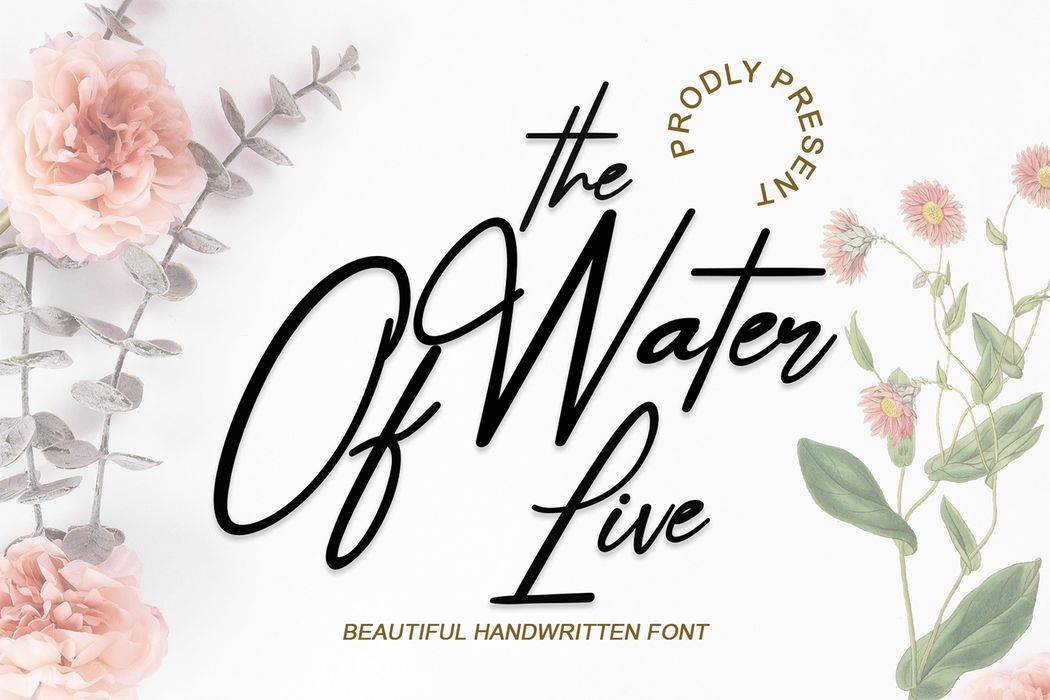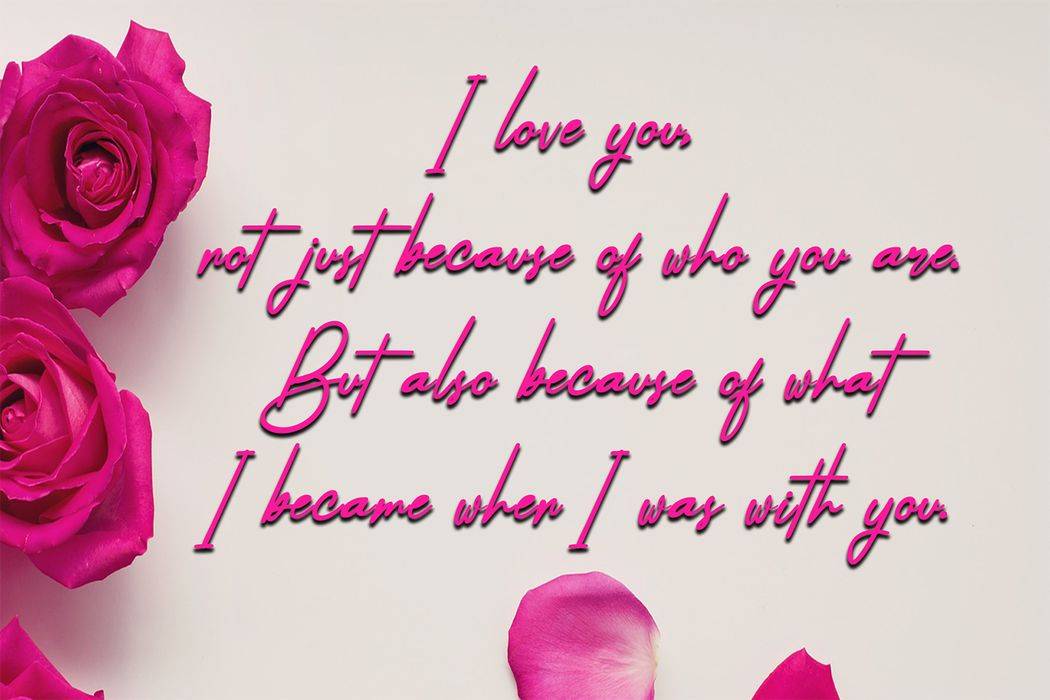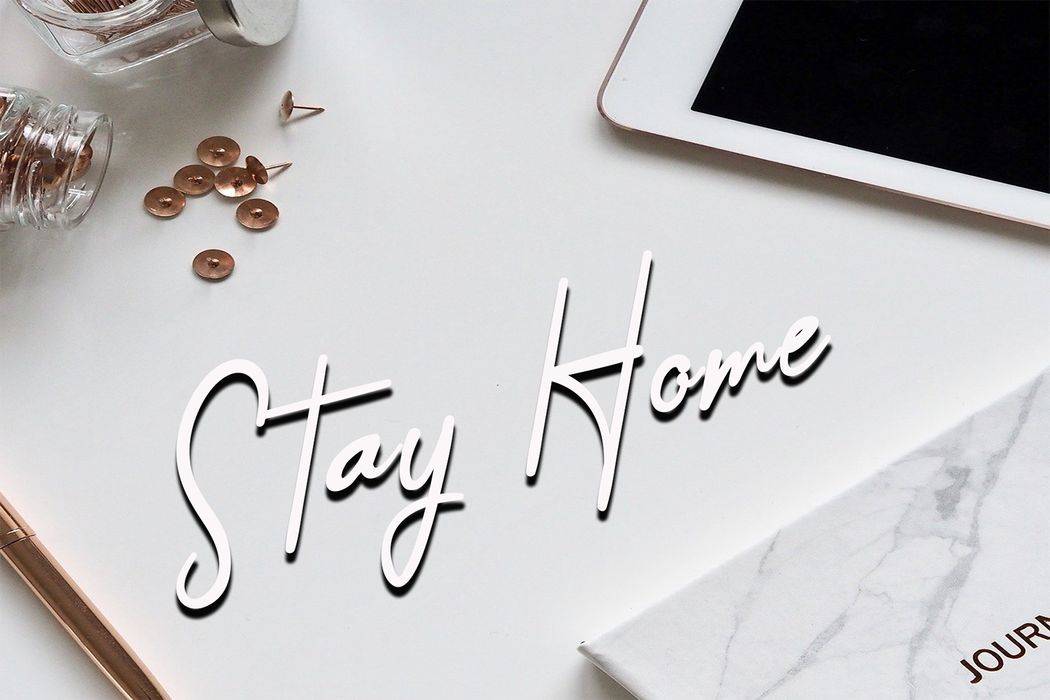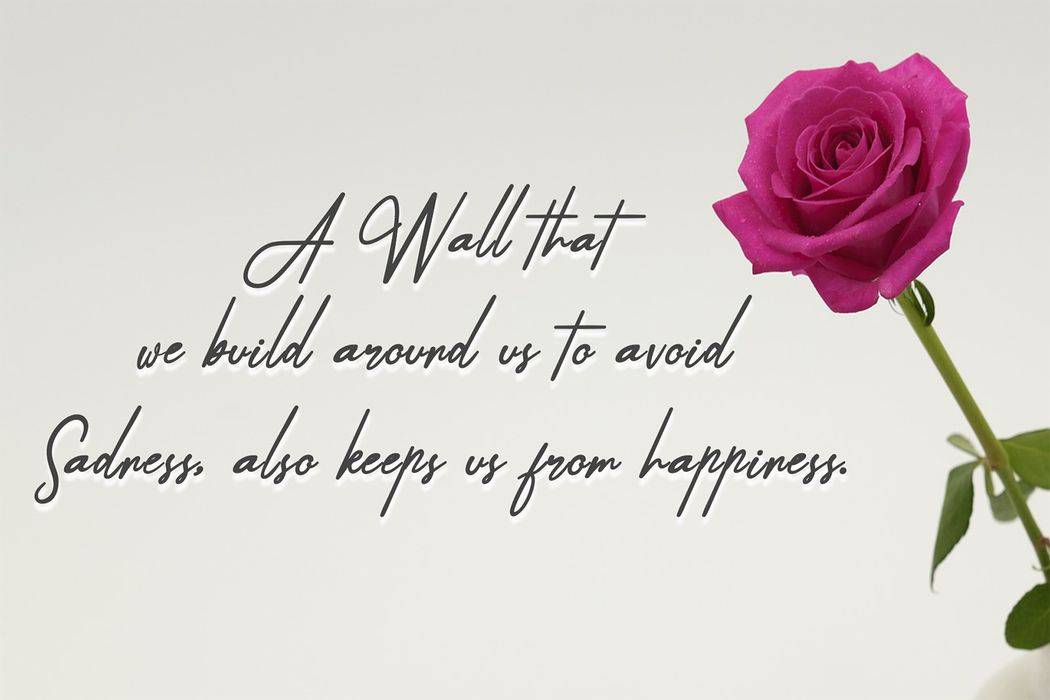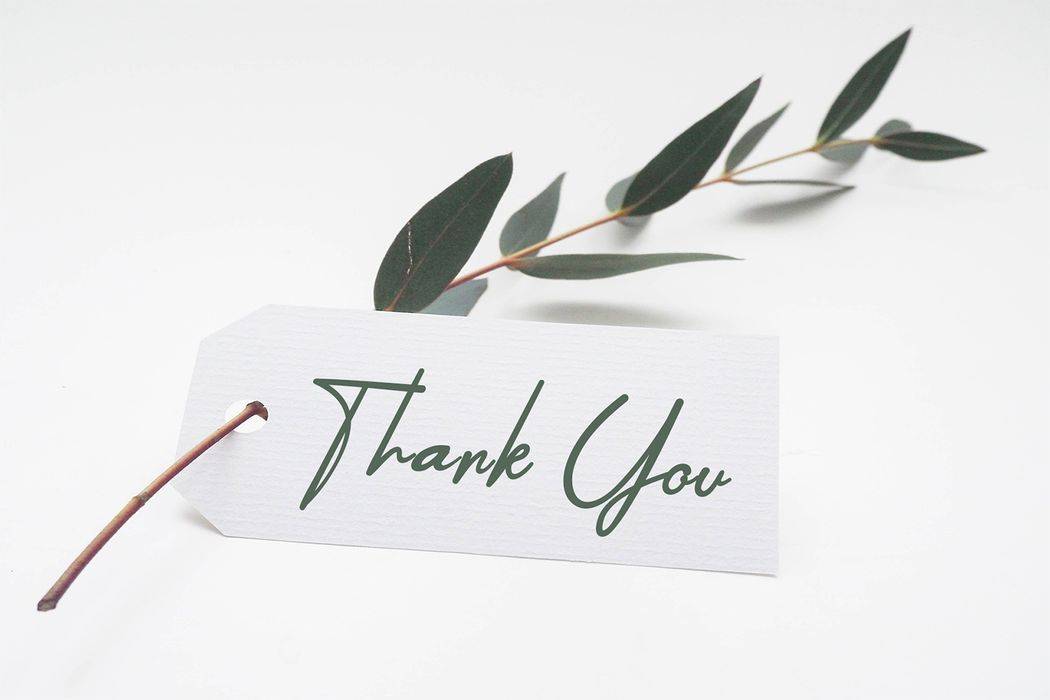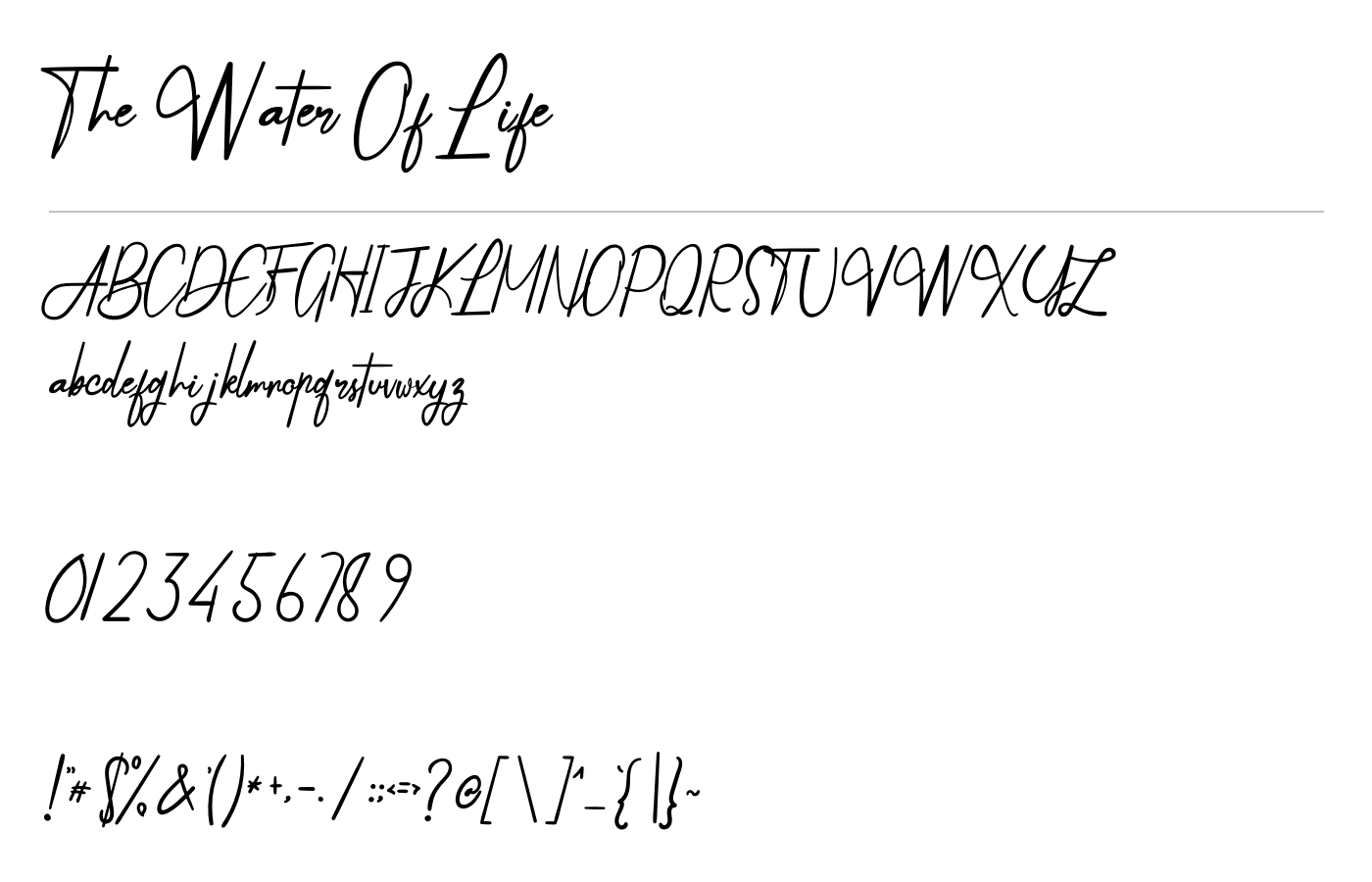
The Water of Life is a delicate, handwritten script font with a tall, narrow structure and elegant, flowing strokes that give it a modern and refined feel. Its light weight and graceful curves make it ideal for stylish branding, invitations, and editorial design where a personal, sophisticated touch is needed. This font works beautifully in contexts that require an artistic, intimate vibe, such as fashion labels, beauty products, and creative logos.
The Water of Life Font
About The Water of Life Font